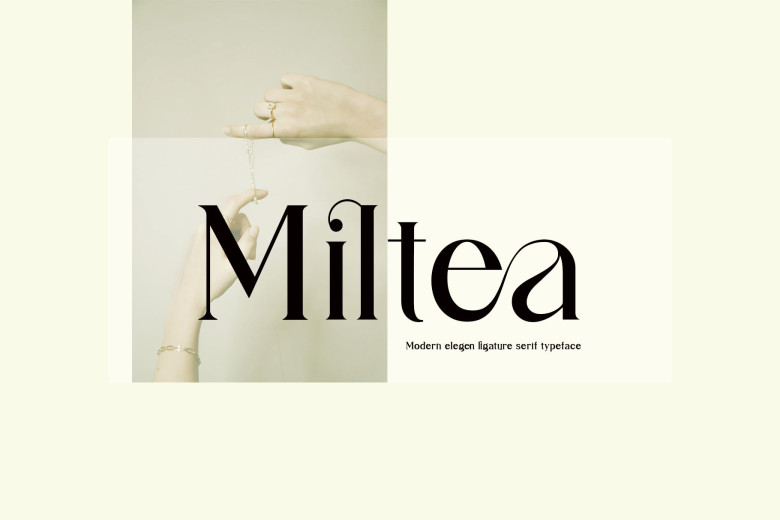
Miltea Font
Miltea is an elegant and classy serif typeface. It is a modern and nostalgic font that works well for logos, magazine, social media and more. Already matched up and ready to be used together for your next design! For those of you who are needing a touch of elegant, stylish, classy, chic and modernity for your designs, this font was made for you! Miltea was built with OpenType features and includes ligatures, numbers, punctuation, and it also supports other languages.
From the handmade touch, the features are very natural.it’s a Serif type, making it very easy to read in any application.
Miltea Ligature Serif Typeface